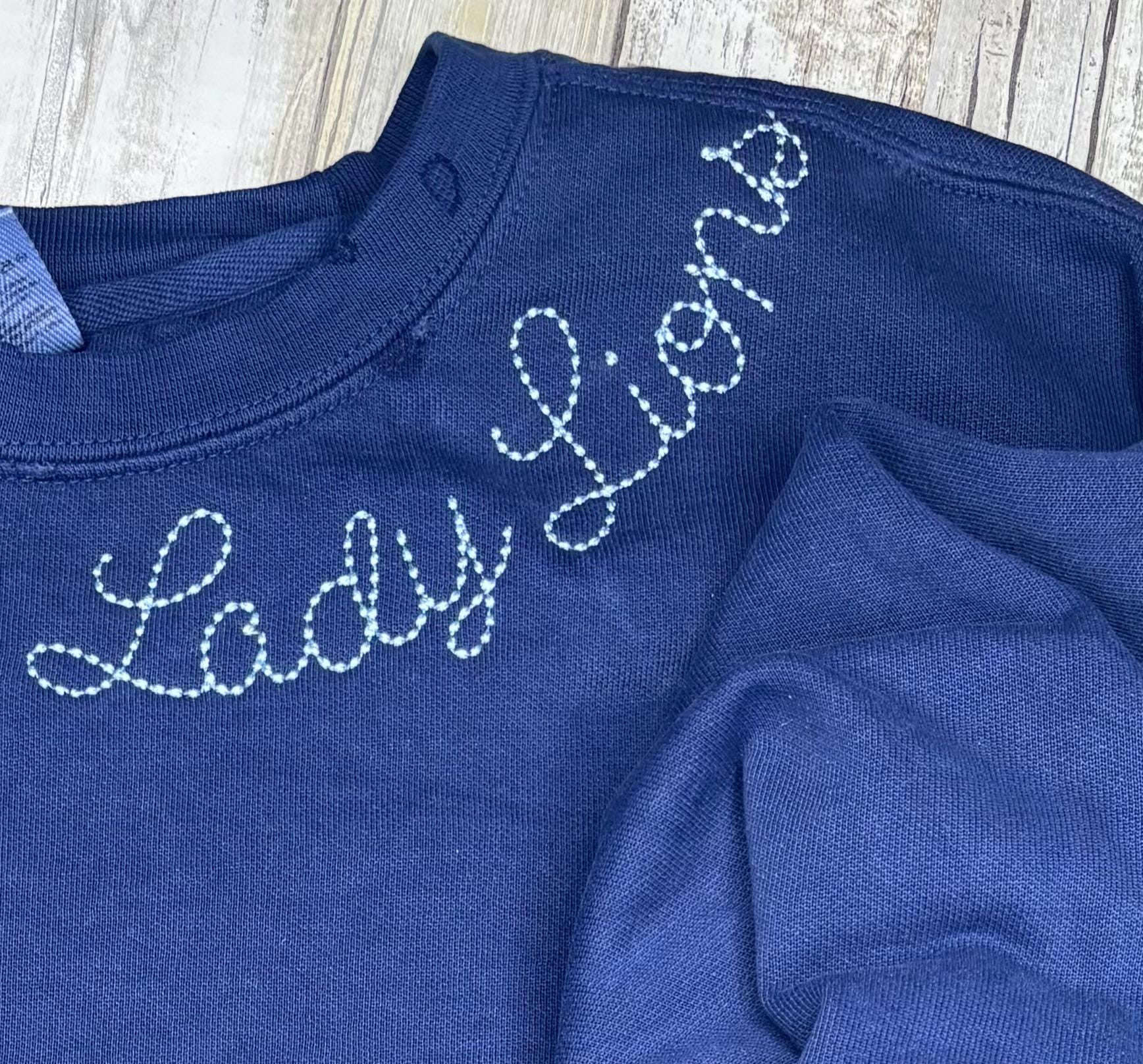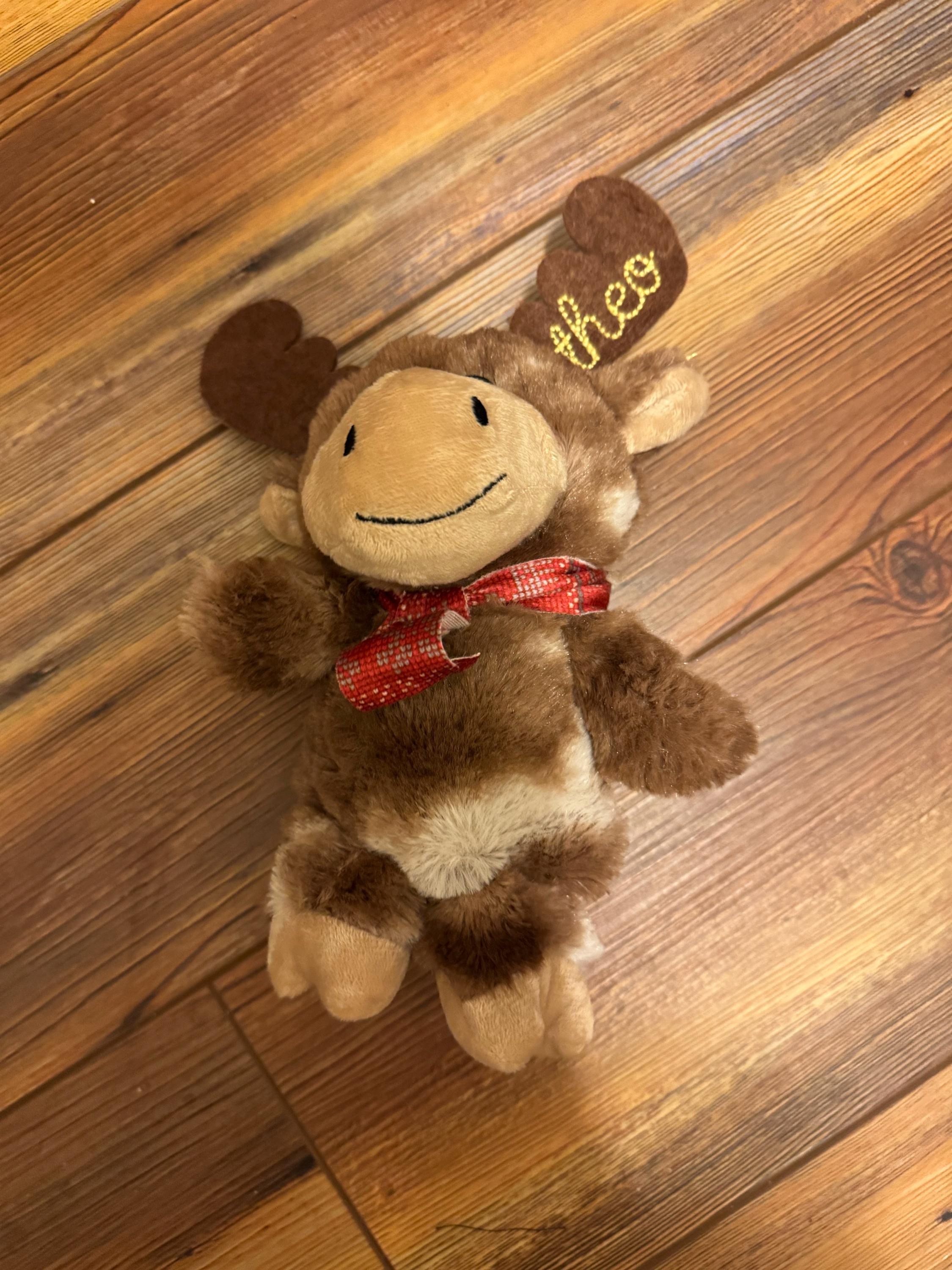
Classic script Hand stitch effect FONT machine embroidery designs small and big sizes bean stitch monogram alphabet letters and numbers and BX
Entire alphabet uppercase and lowercase letters, numbers, and punctuation.